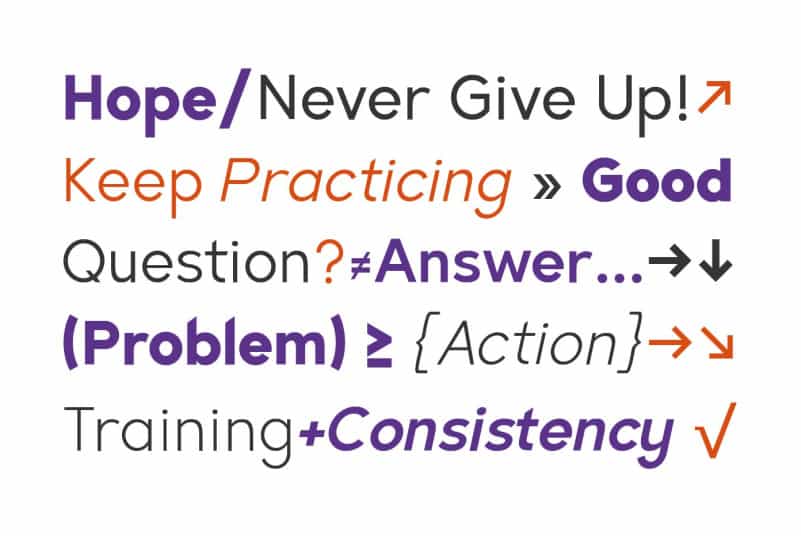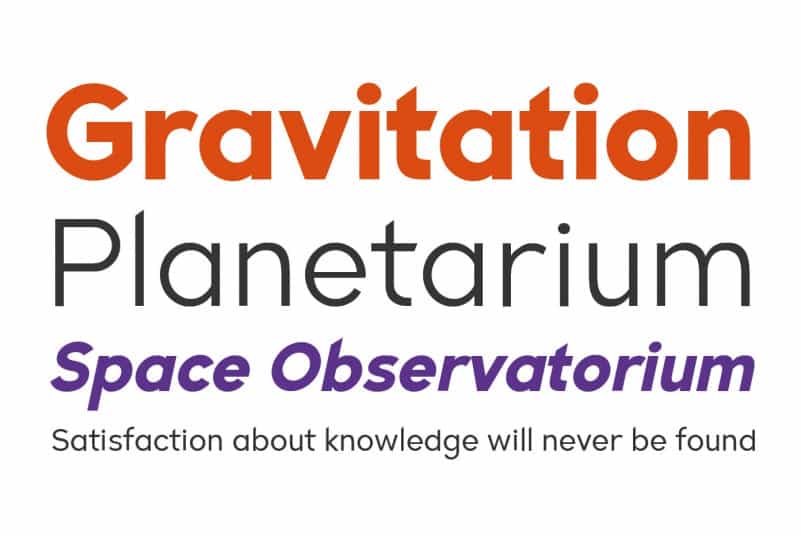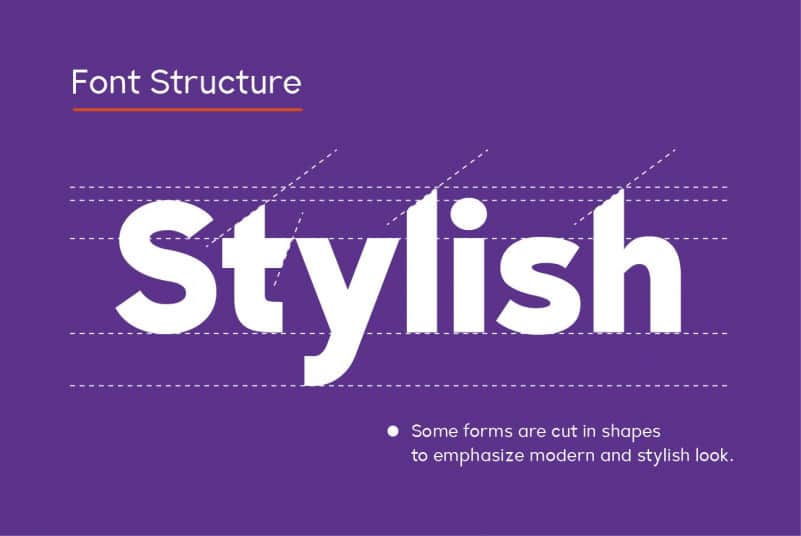
Slenco Sans Serif Font Family
Slenco Sans Serif Font Family is suitable for headlines of all sizes, editorial design, branding, packaging, web and broadcast use, etc.
This font designed with modern forms, so each individual character is quickly and easily recognized. Such distinctness makes it good for signage and display work.